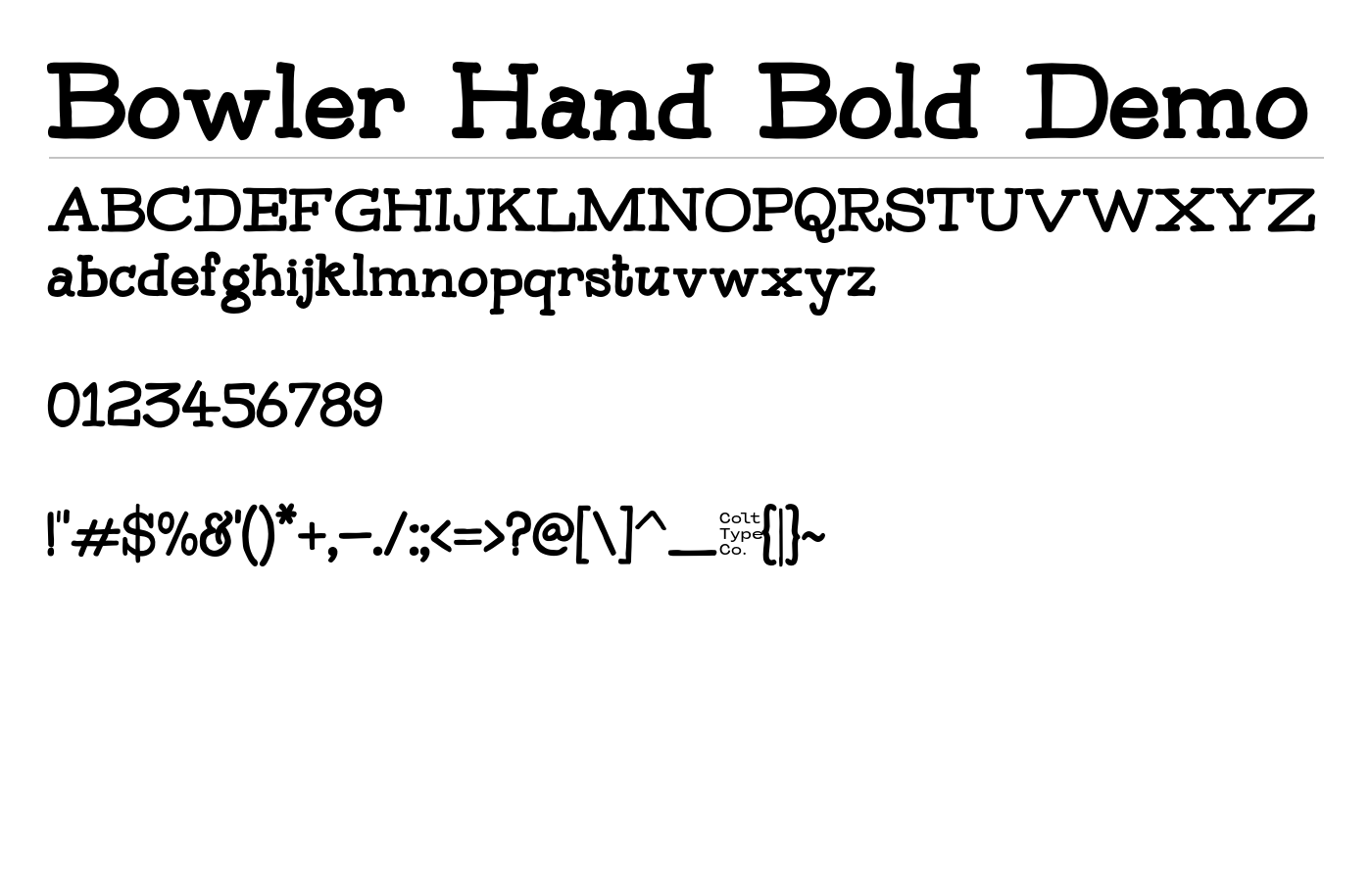
Bowler Hand is a bold, quirky serif font with a hand-crafted feel, featuring irregular shapes and playful letterforms that create a casual, friendly impression. Its distinctive, slightly condensed style with medium contrast and rounded serifs makes it ideal for creative branding, posters, and editorial projects seeking a unique, approachable look. This font works well when you want to add personality and warmth without losing readability.
Bowler Hand Font
About Bowler Hand Font
| Font family | Bowler Hand Font |
| Designer | Adam Greasley |